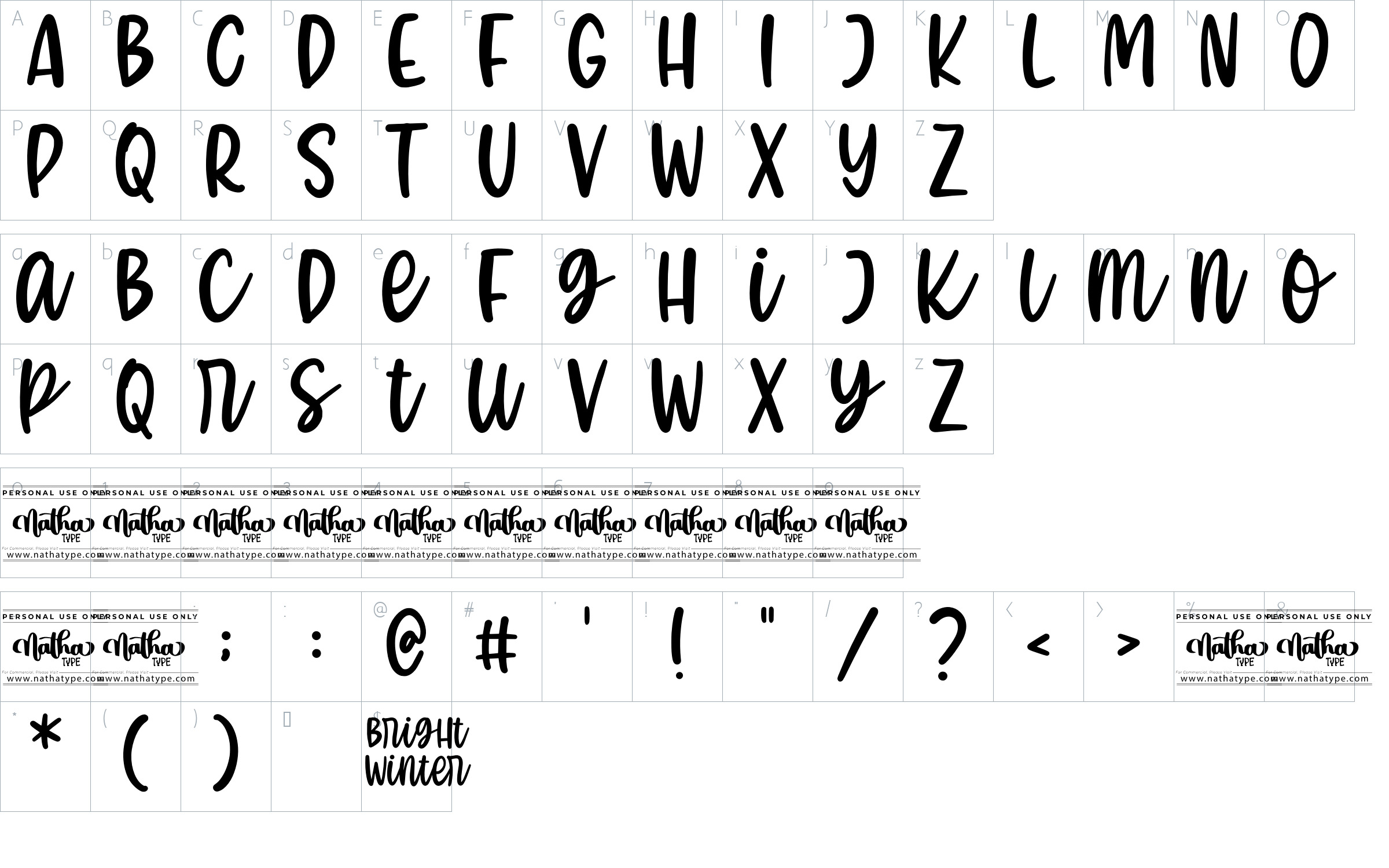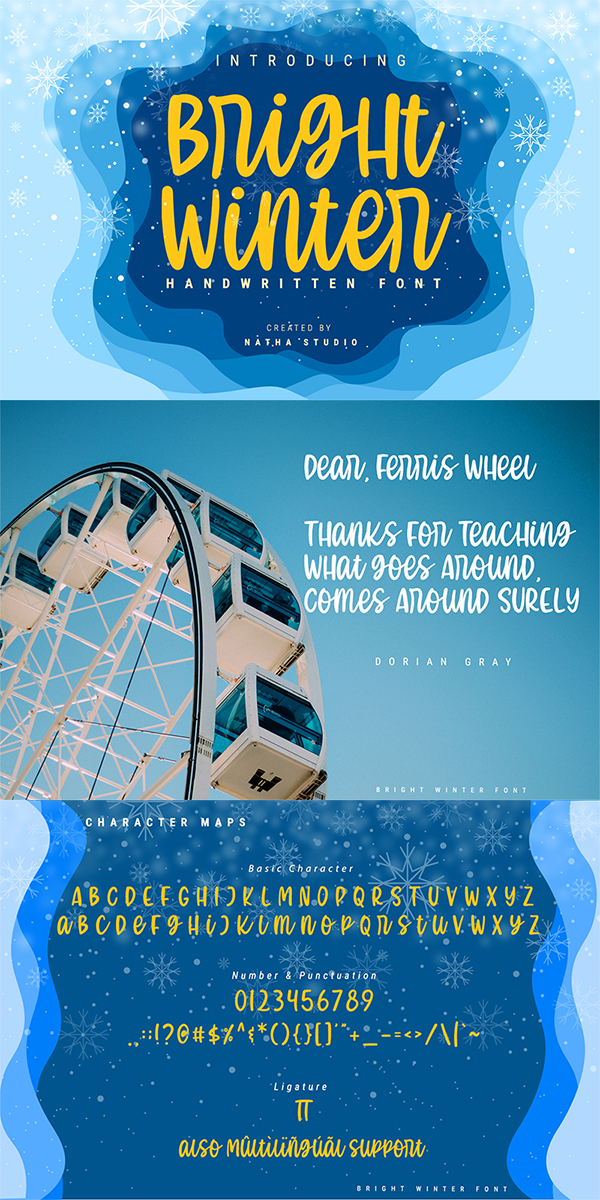
Bright Winter Font
About Bright Winter
Bright Winter is a beautiful and sweet handwritten font. It is fresh, modern, and elegant. Made for any professional projects. This font will look amazing in wedding invitations and greeting cards to social media quotes, branding, and more!
Featured :
-Standart Ligatures